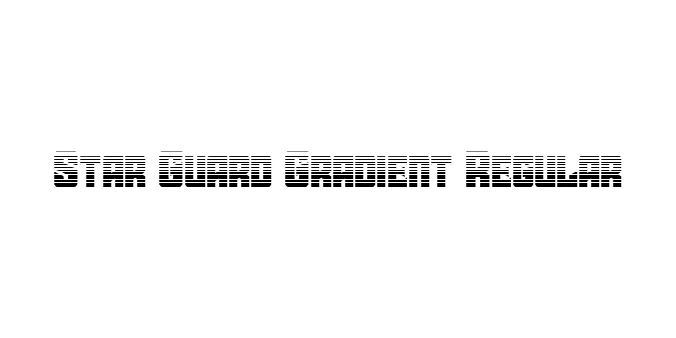
Star Guard Gradient Regular
Designed by Dan Zadorozny (Iconian Fonts)
Star Guard Gradient Regular is a specialized display typeface belonging to the expansive Star Guard family, designed by Dan Zadorozny of Iconian Fonts. The font captures a distinct aesthetic rooted in retro-futurism and superhero comic book aesthetics. Its geometric construction is characterized by bold, wide proportions and sharp angles, evoking a sense of strength, speed, and high-tech sophistication. The gradient variant specifically introduces a pre-rendered vertical fade, simulating the metallic shine or cinematic lighting often seen in 1980s and 90s action cinema titles.
Functionally, the typeface is engineered for maximum visual impact in large formats. Because the gradient effect is built directly into the glyphs, it allows designers to achieve a complex, layered look without requiring advanced post-processing tools. This makes it a popular choice for independent creators in the gaming and comic industries who need to establish a strong, genre-specific identity. Since its release, it has become a staple for projects requiring a techno-industrial or science-fiction flair, maintaining readability while providing a heavily stylized decorative touch.
Star Guard Gradient Regular Best Uses
Perfect for title screens, e-sports logos, and high-tech user interface headers.
Excellent for science fiction movie posters and action-oriented motion graphics.
Ideal for bold graphic tees and sports-themed streetwear designs.
Suitable for energy drinks, tech hardware packaging, and automotive branding.